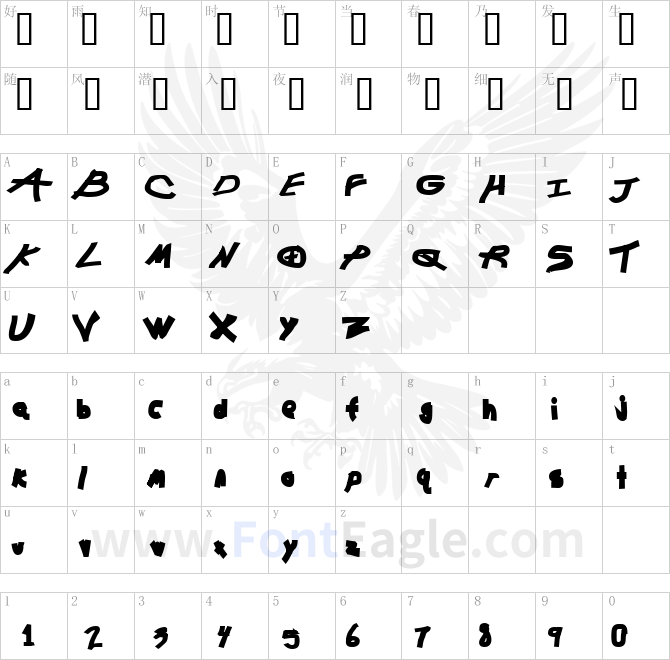
Chunkmuffin Black.ttf Font Image
Chunkmuffin Black.ttf Base Font Information
- Font name:Chunkmuffin
- Font Subfamily ID:Chunkmuffin
- Font Full Name:Chunkmuffin Black
- Font Version:2.0 of this keen little font
- Postscript:ChunkmuffinBlack
Chunkmuffin Black.ttf Characters Sample